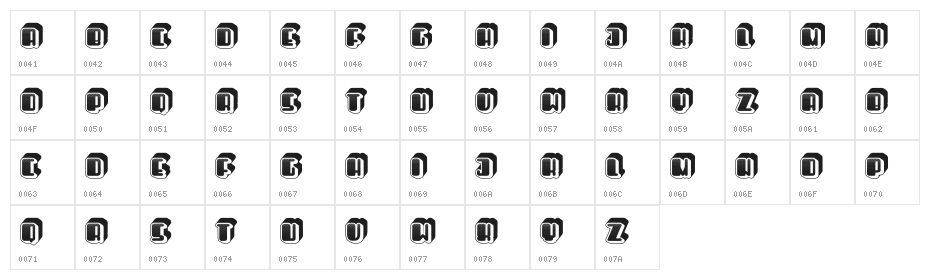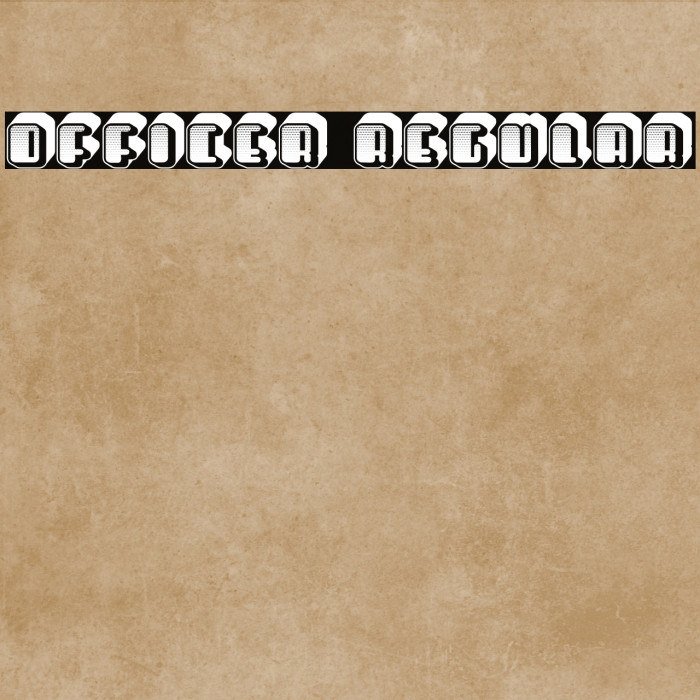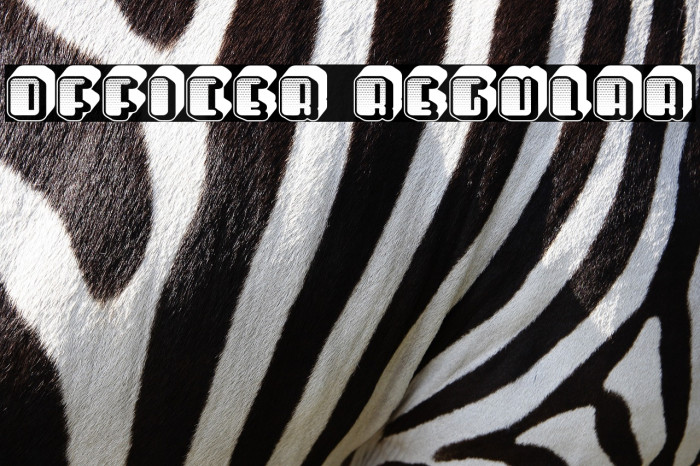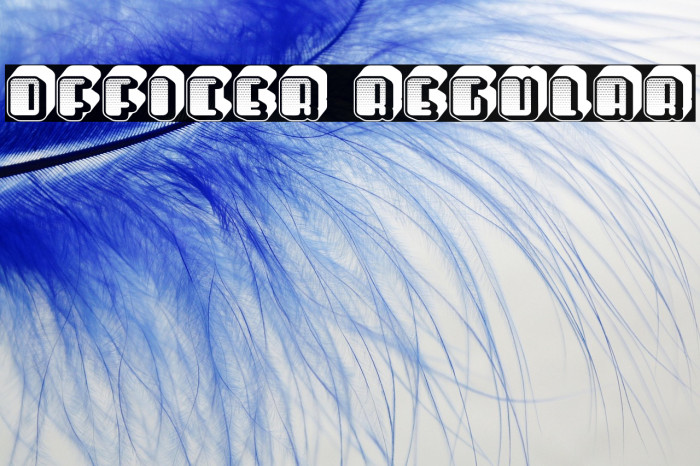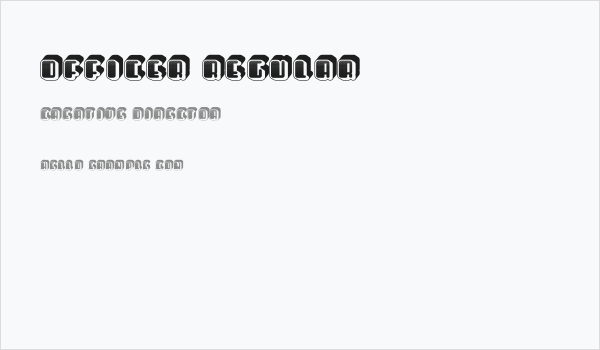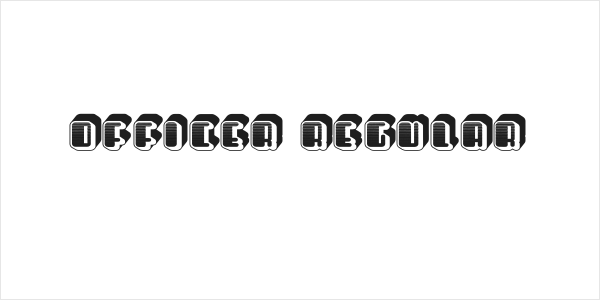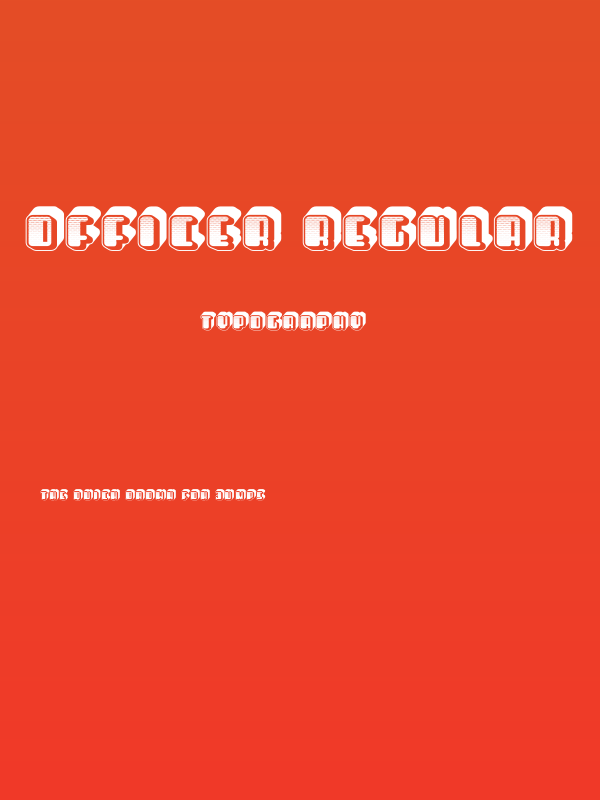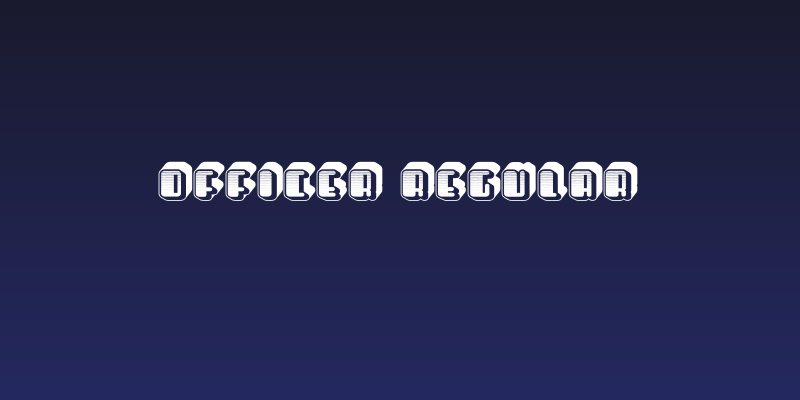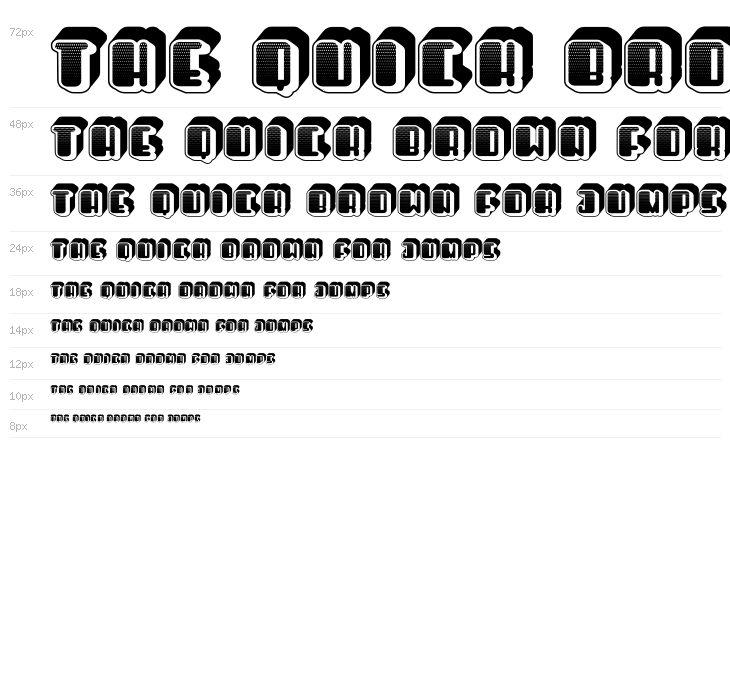
Officer Regular Font
Officer Regular Description
This font features a bold, three-dimensional design with a distinct shadow effect, giving it a strong and impactful appearance. The characters are uppercase only, with a geometric and blocky structure that is both modern and eye-catching. The inner part of each letter is filled with a dotted pattern, adding texture and depth. The outer edges are smooth and rounded, contrasting with the sharp angles of the inner shapes. This font is ideal for creating a sense of boldness and authority, making it suitable for headlines and attention-grabbing designs.
| Proposed Projects | Ideal for posters, logos, video game graphics, and any project needing a bold, modern look. |